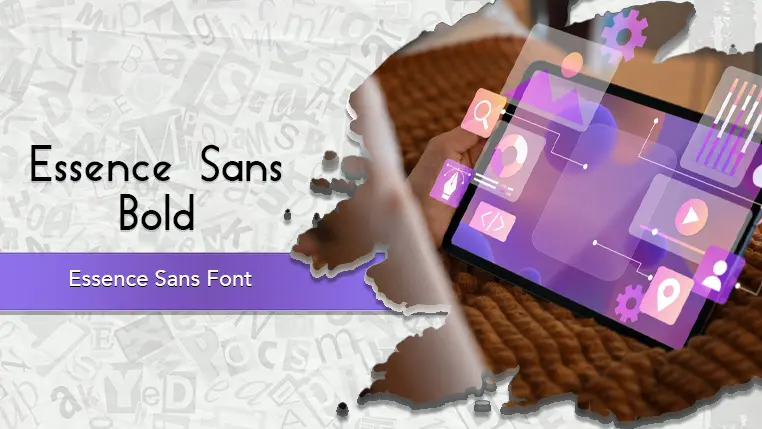
The Essence Sans font family may be ideal for you if you enjoy working on an artistic design project. The lively, expressive look of this typeface, which was created by Paulo R., makes it ideal for Essence Sans is excellent legibility on screen makes it a strong contender for websites, applications, and digital interfaces where clarity is paramount. Also on Headlines, Display Text, Body Text (especially lighter weights) and Presentations and Infographics. and other light-hearted visual projects.
Bold Italic, Bold, Italic, Light Italic, Light, Regular are the six primary font styles of the Essence Sans font family. You may build dynamic, visually appealing text layouts with the distinct flair that each style offers. With crisp, readable lines and a relaxed tone.